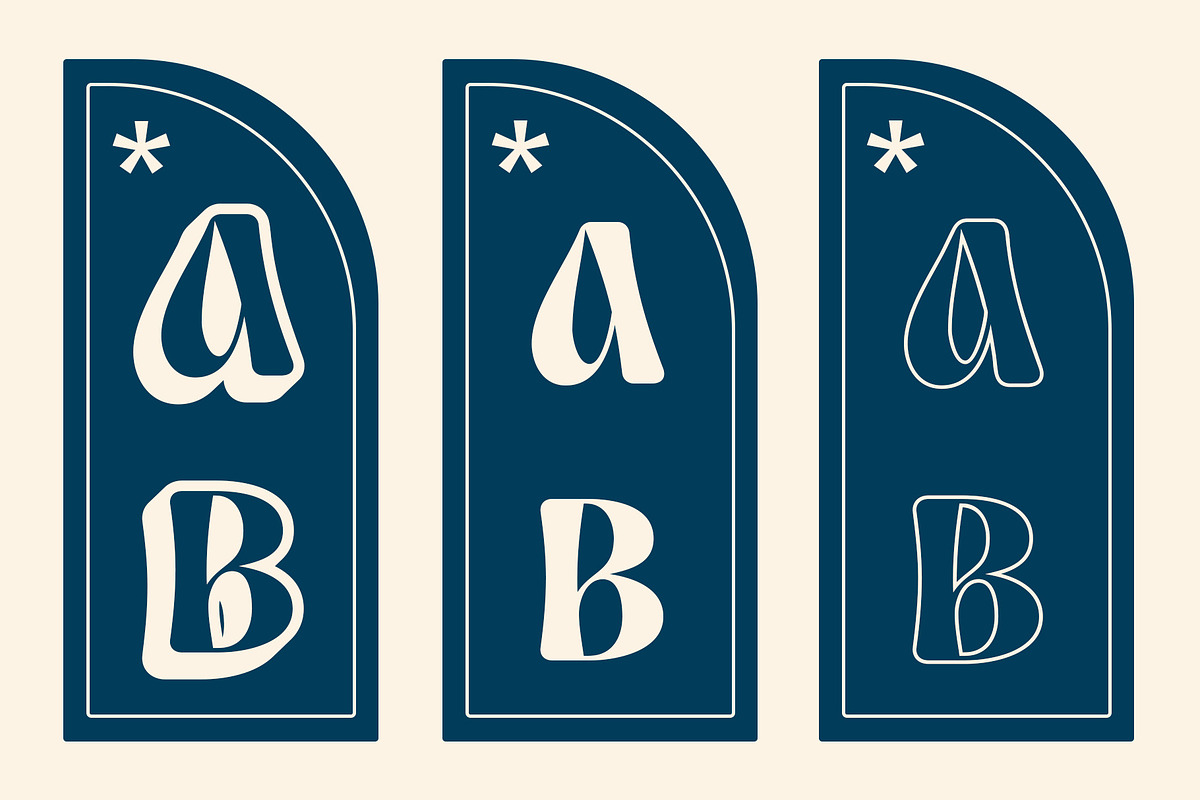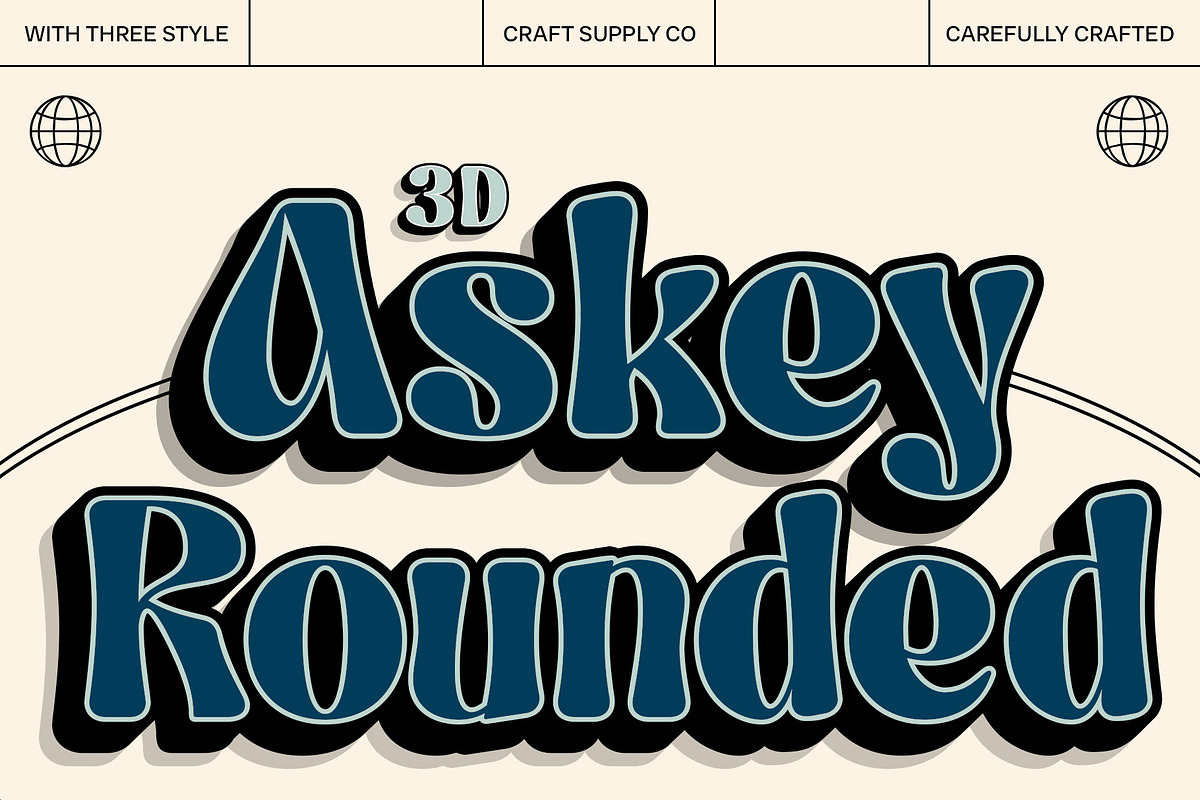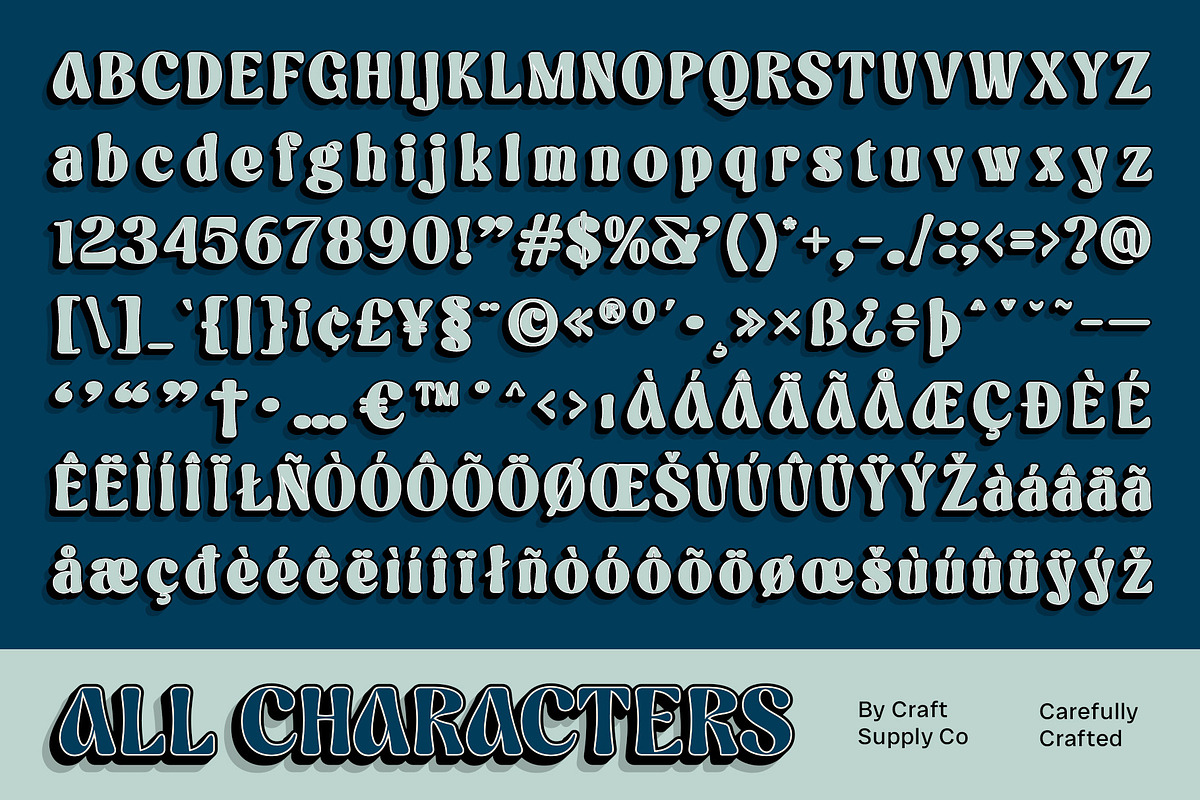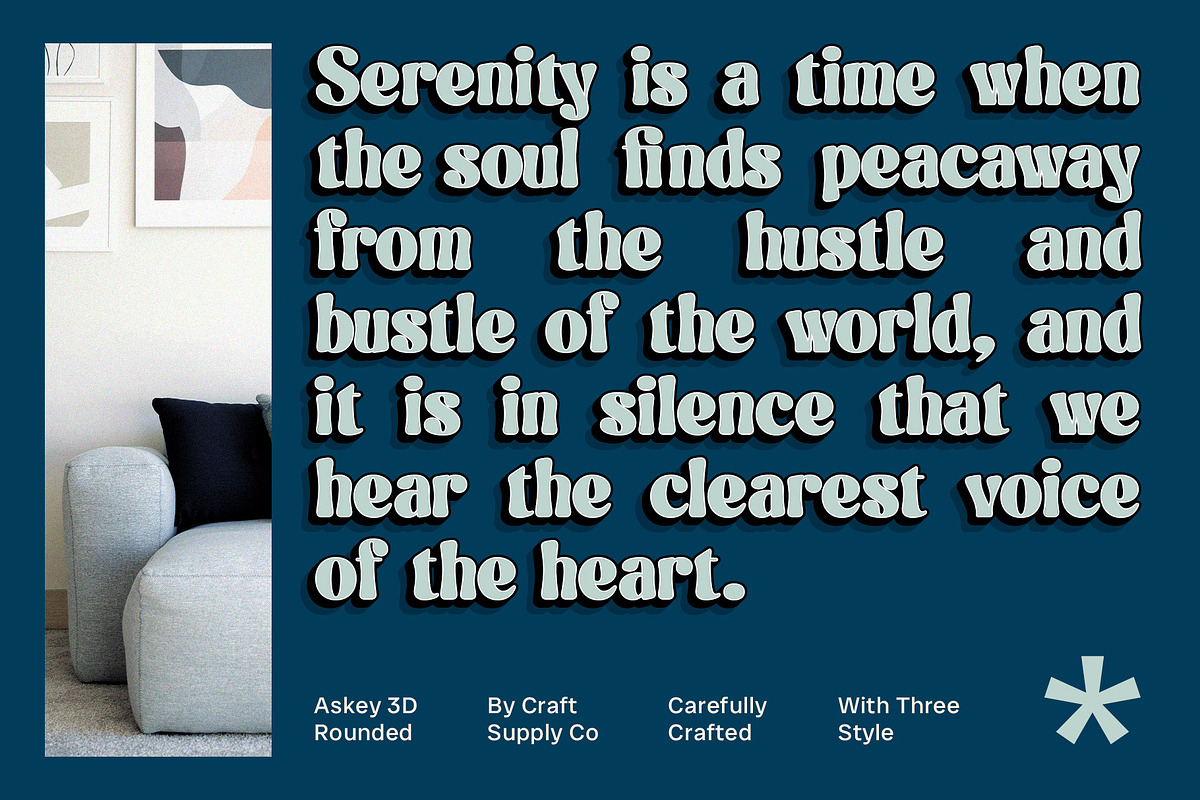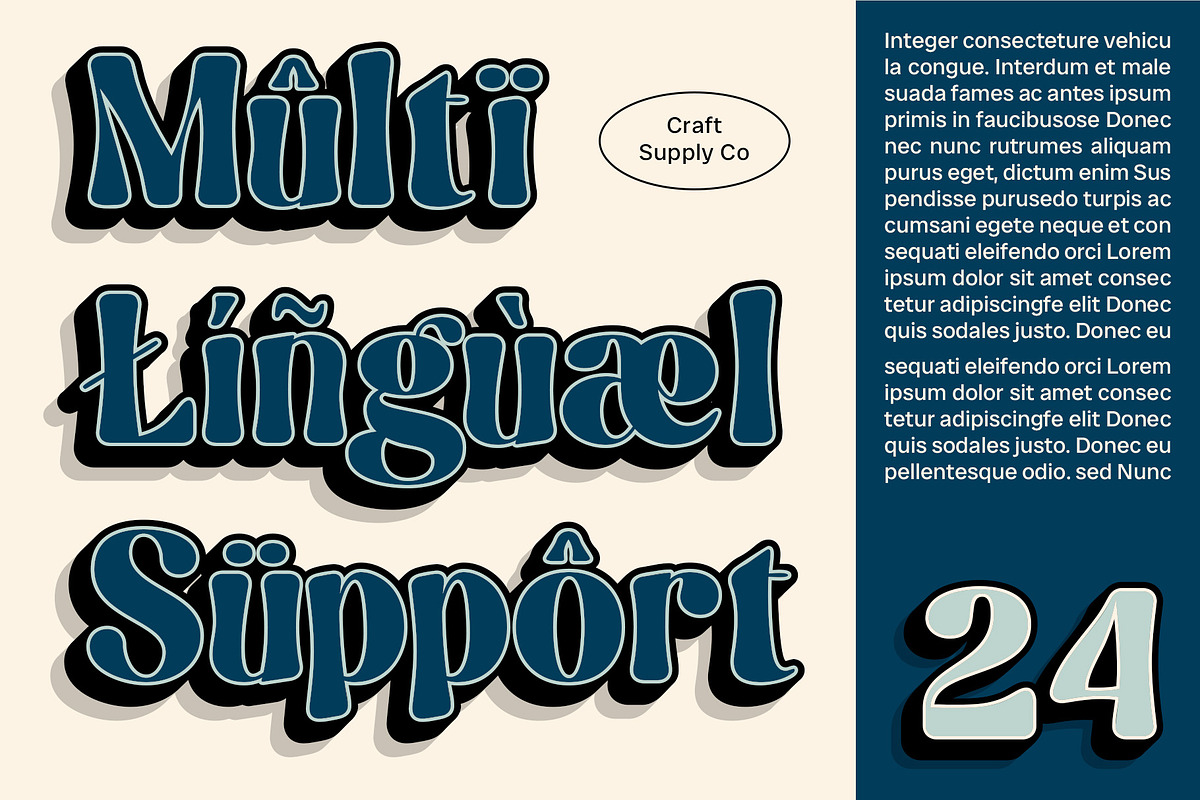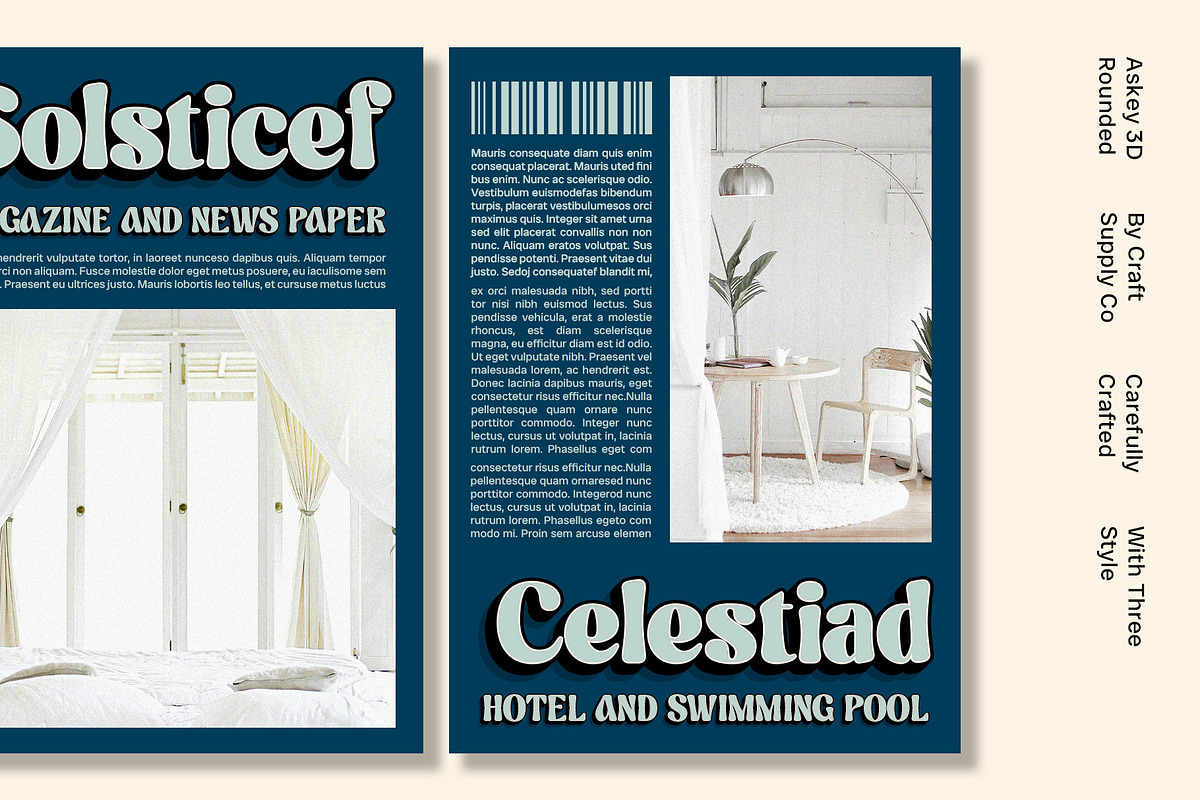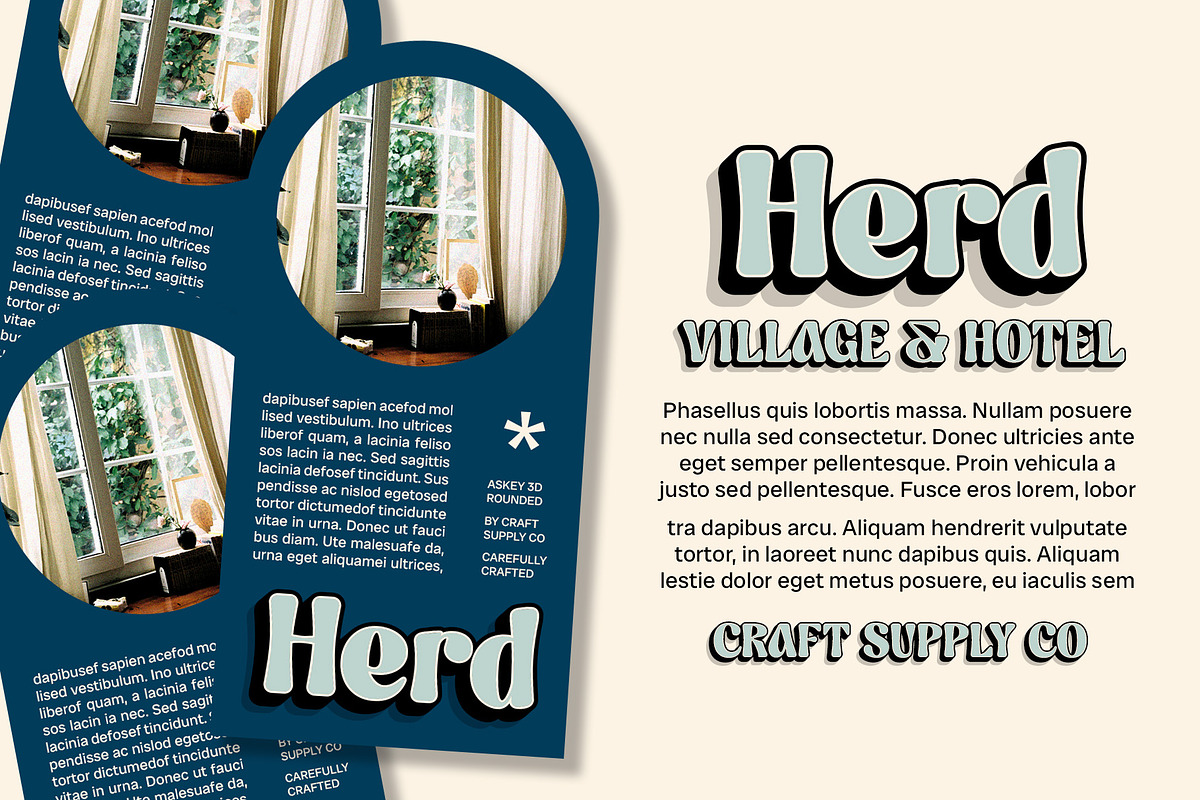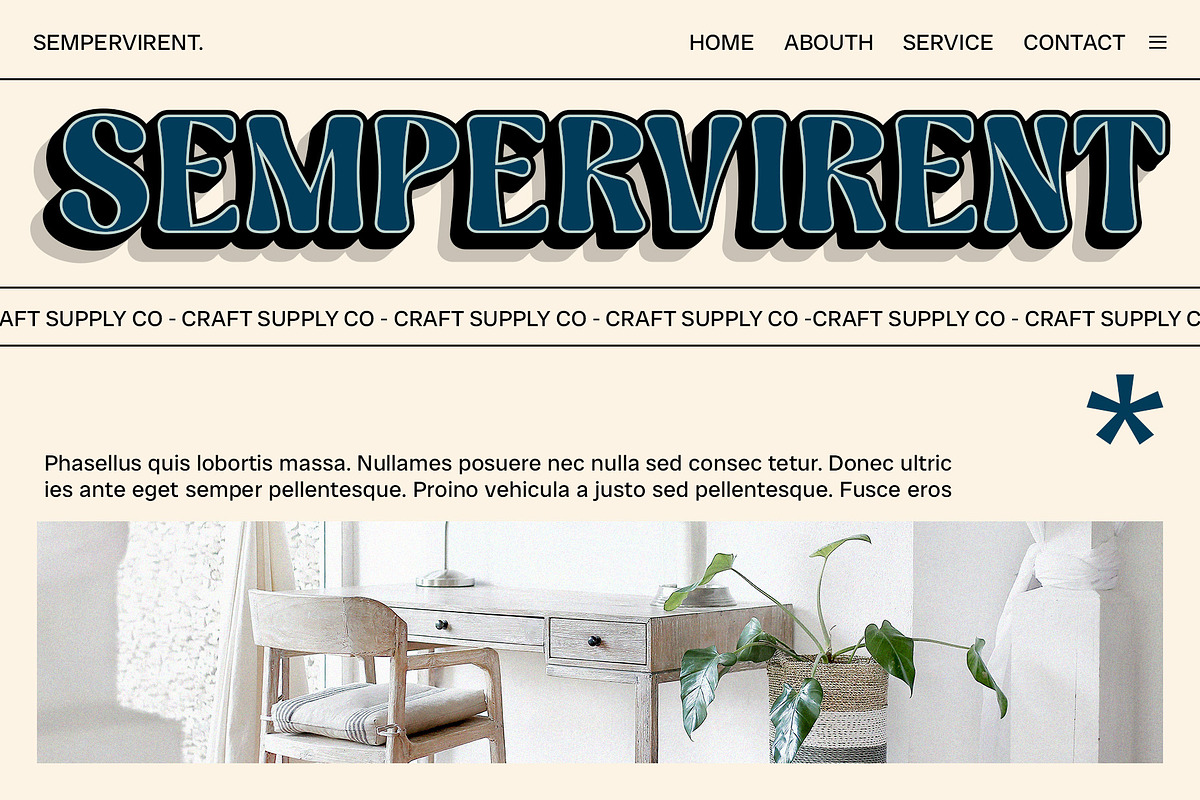
Askey Rounded 3D
Askey Rounded 3D Font: Playful Charm with Retro Flair
Bold Rounded Serif with 3D Effect Askey Rounded 3D is a bold, rounded serif font featuring a captivating 3D effect. Its playful curves and dimensional appearance combine to create a unique blend of cuteness and funkiness, making it a standout choice for any design project.
Nostalgic Yet Lively Aesthetic Embrace a nostalgic vibe with a modern twist. Askey Rounded 3D’s retro-inspired design and 3D depth evoke a charming blend of vintage and contemporary styles. Perfect for projects that aim to capture both a whimsical and retro feel.
Versatile for Playful Branding and Creative Projects Ideal for playful branding, vintage-inspired posters, and creative designs, Askey Rounded 3D adds a touch of quirky charm to any project. Its bold presence and rounded serifs make it suitable for a variety of applications, from eye-catching advertisements to engaging promotional materials.
Dynamic and Eye-Catching With its dimensional look and rounded serifs, Askey Rounded 3D ensures your designs stand out. Whether you’re crafting a playful logo or a vibrant poster, this font’s bold, rounded shapes and 3D effect will bring a dynamic and engaging touch to your work.
- Askey Rounded Regular
- Askey Rounded Outline
- Askey Rounded Extrude Right
- Askey Rounded Extrude Left